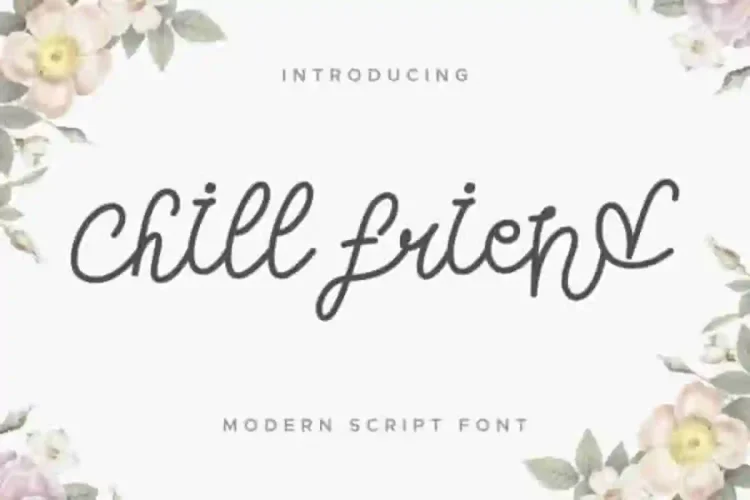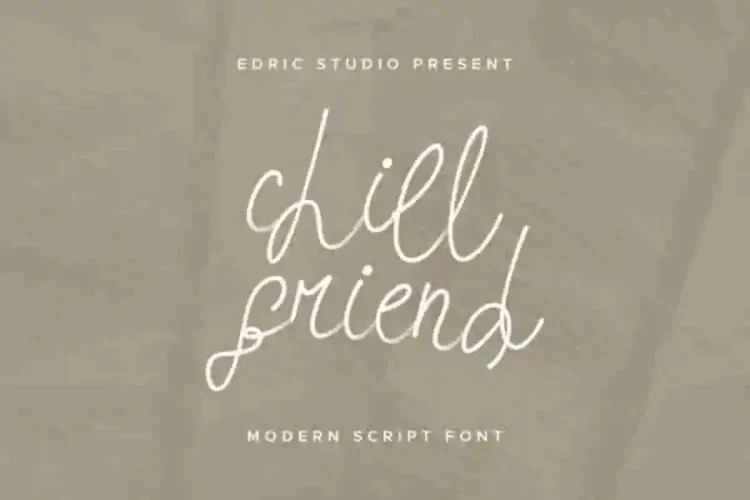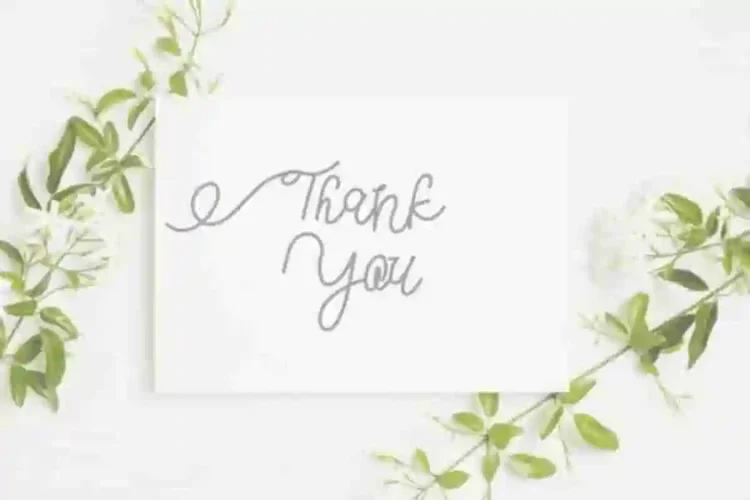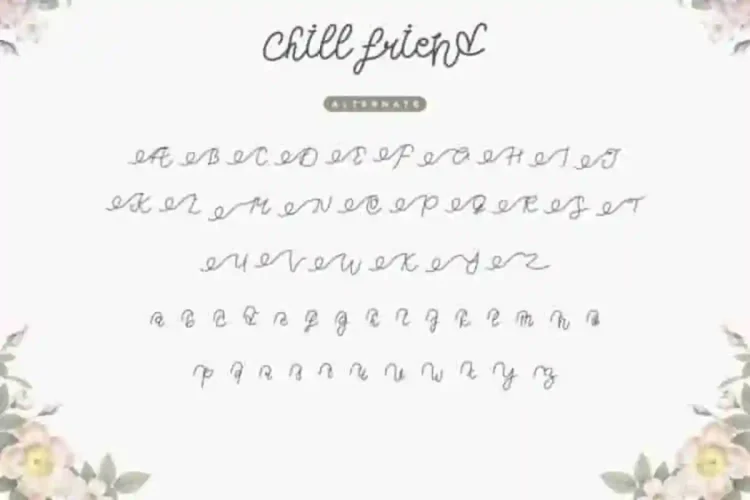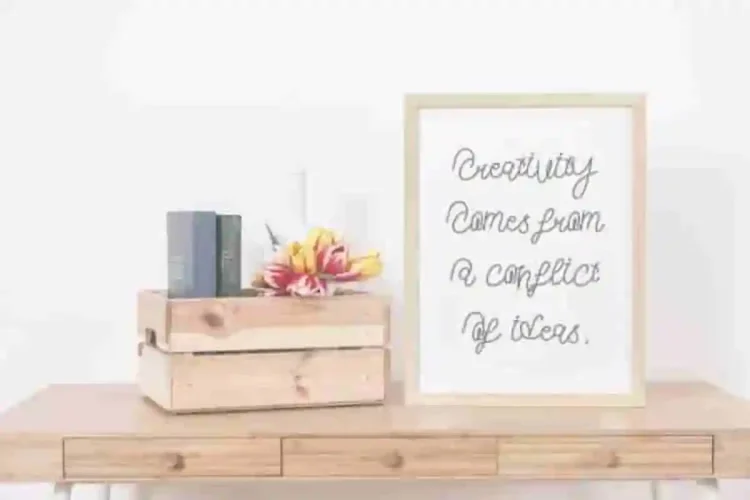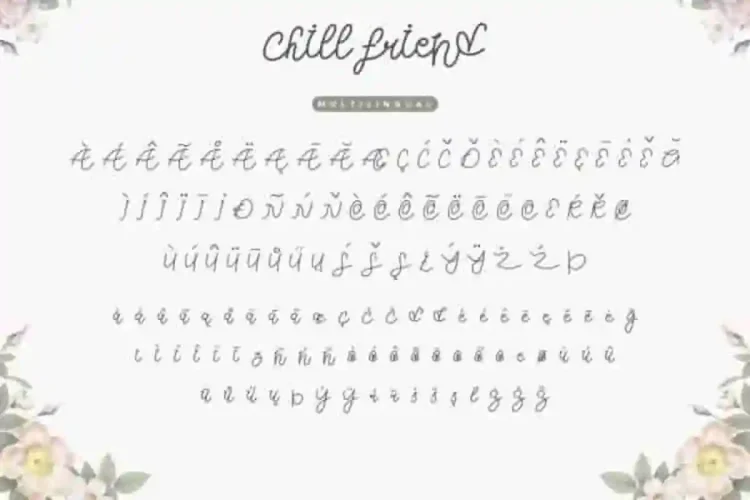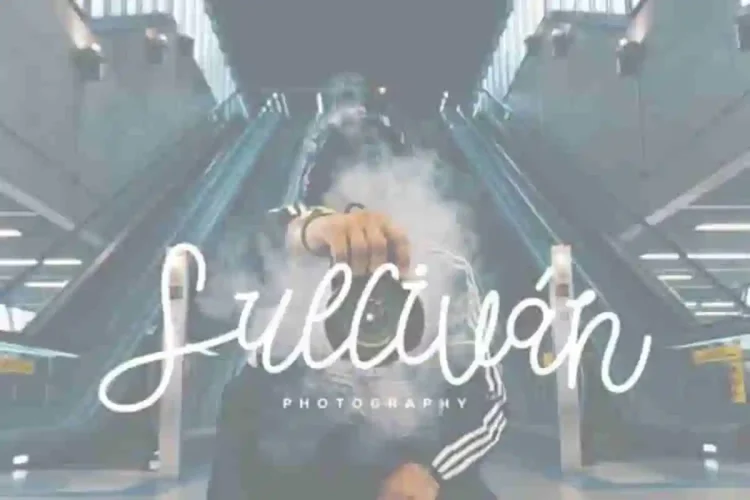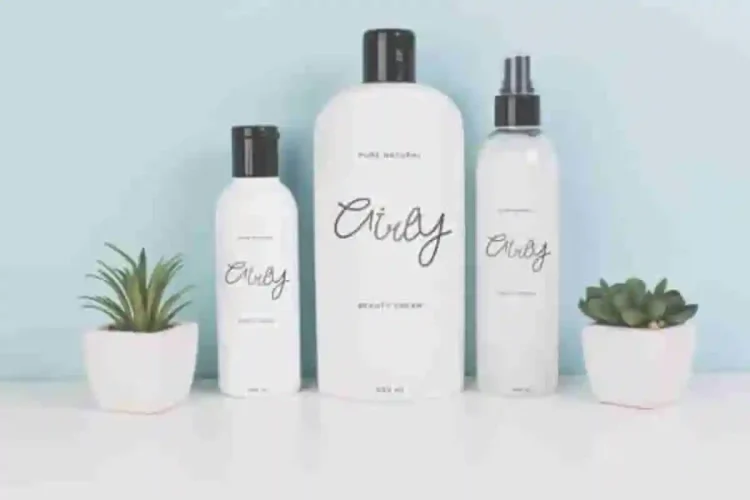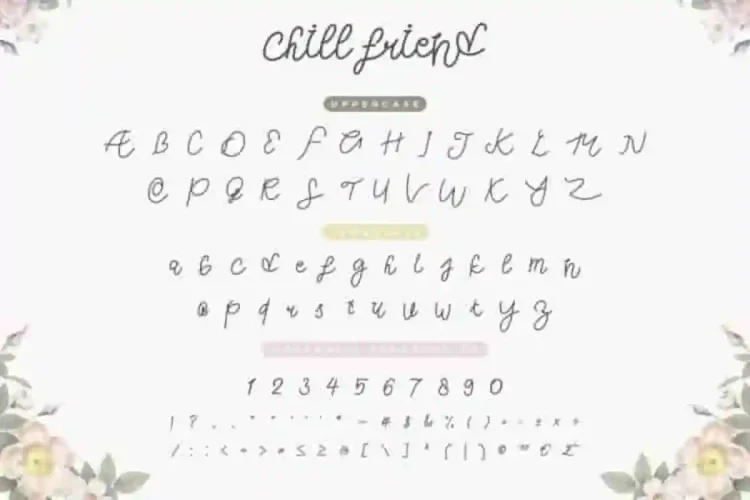
Chill Friend Calligraphy Script Font
Please welcome! : Chill Friend Calligraphy Script Font
This is a calligraphy script font, handcrafted from our Studio here in, Indonesia. The artists/designers of this beautiful tyeface is Yasri and Sarah Suci.
Chill Friend Calligraphy Script font is an exclusive unique script typeface with brush style. This font has a stunning characters set, perfectly managed with well spaced and kerning.
Chill friend Calligraphy Script font will be great for any projects including : branding, logo, stationery, business card, signage, flyer, brochure etc. Almost all industries will be match for this typeface: wedding, events, real estate, architect, law firm, florist, gardening, makeup artist, travel, hotel, musician etc.